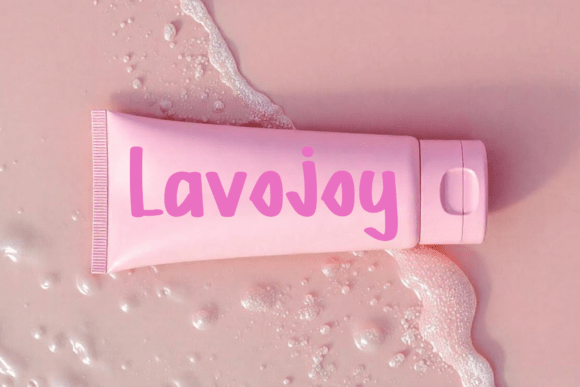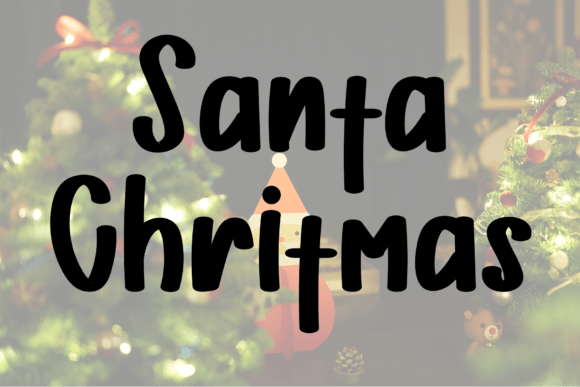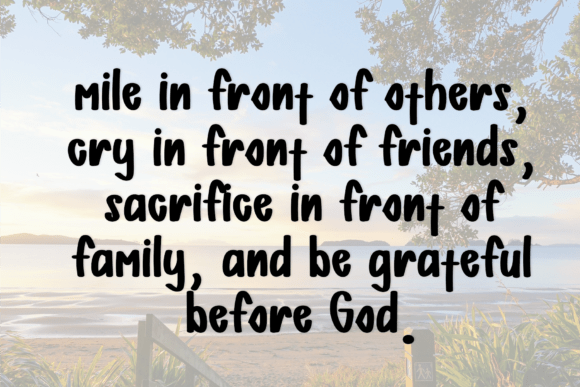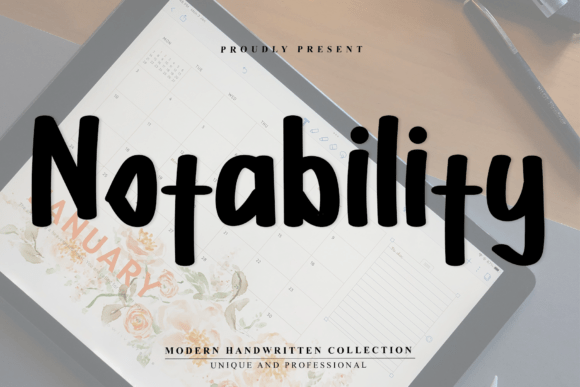
Introduction to Notability Font
Notability is a minimal and neat font.
Why Choose Notability Font?
Notability Font offers exceptional quality and versatility, making it a valuable addition to your design toolkit. Whether you’re creating for personal projects or commercial use, Notability Font delivers professional results.